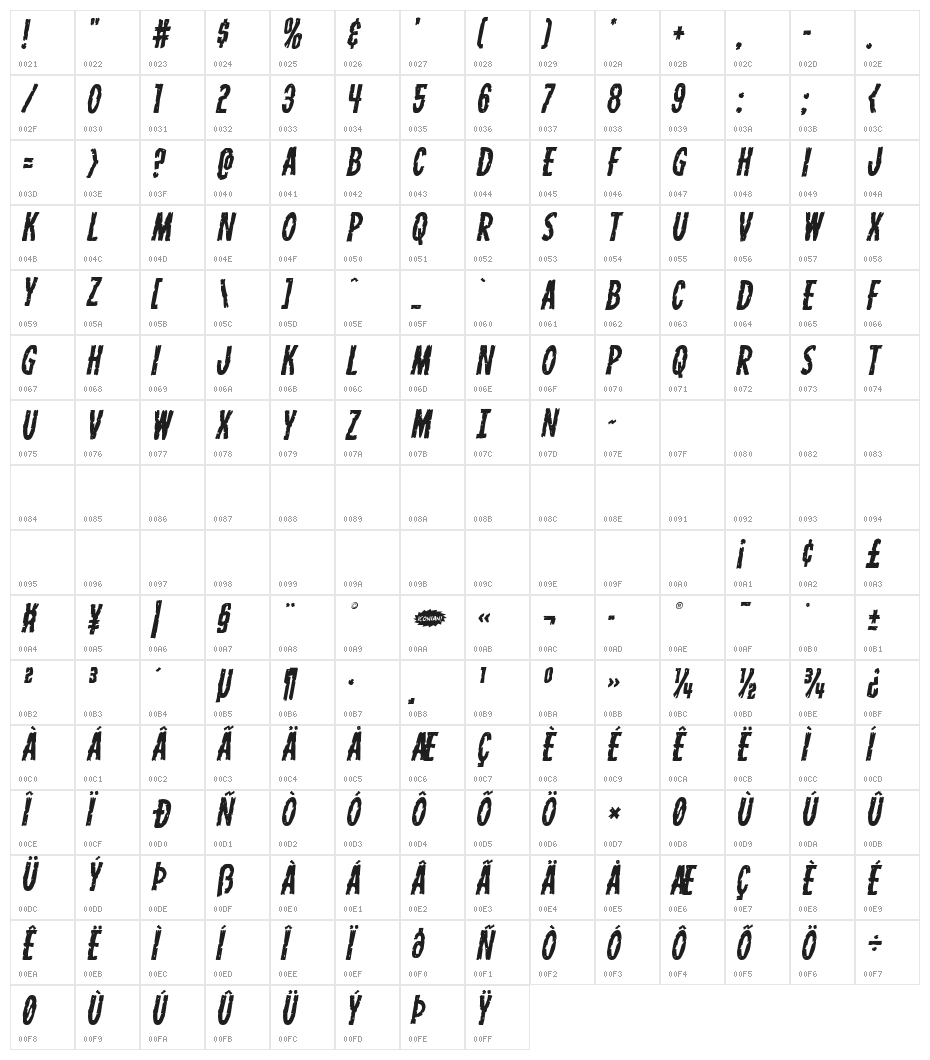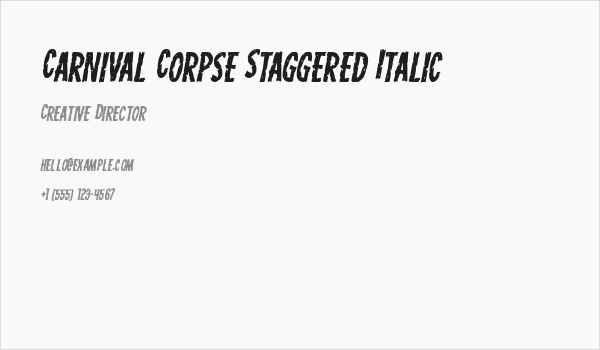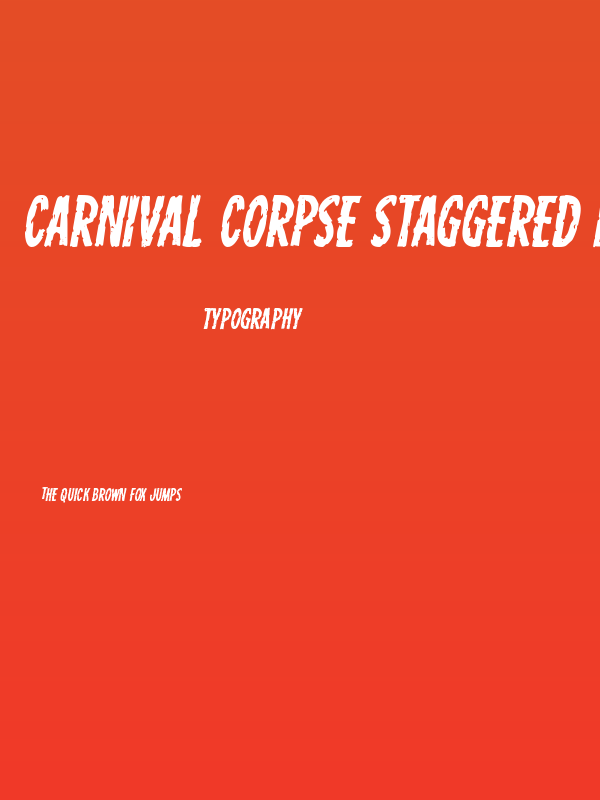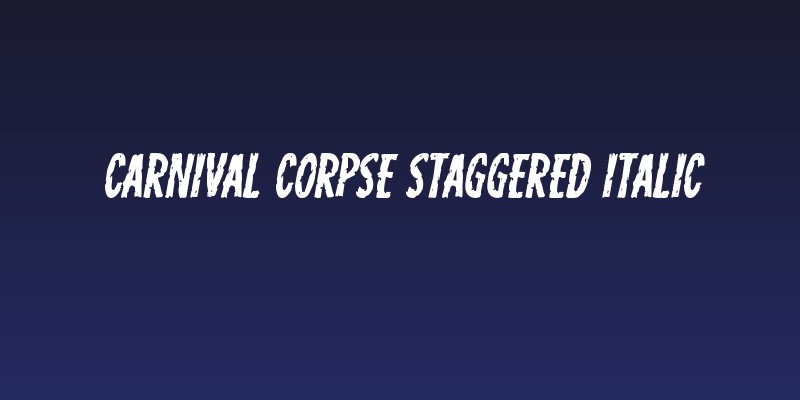
Carnival Corpse Staggered Italic Font
Carnival Corpse Staggered Italic Description
This font features a bold and dynamic style with a staggered, italicized appearance. The characters are heavily distressed, giving them a rough, edgy look that is both eye-catching and unique. The uppercase and lowercase letters maintain a consistent slant, enhancing the italic effect. Numbers and special characters follow the same design, ensuring a cohesive appearance across all text elements. The font's bold weight and high contrast between thick and thin strokes add to its dramatic presence, making it ideal for attention-grabbing designs.